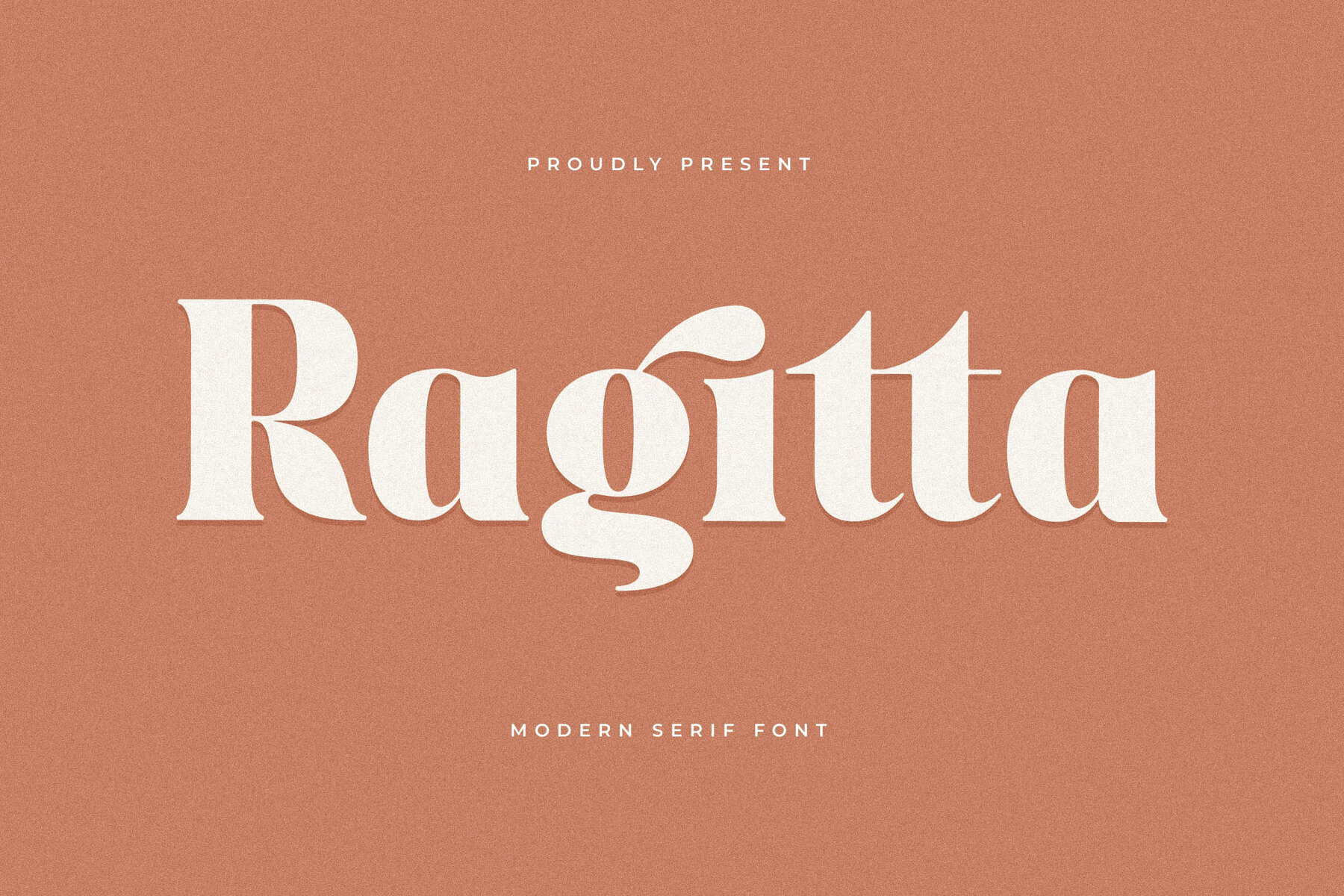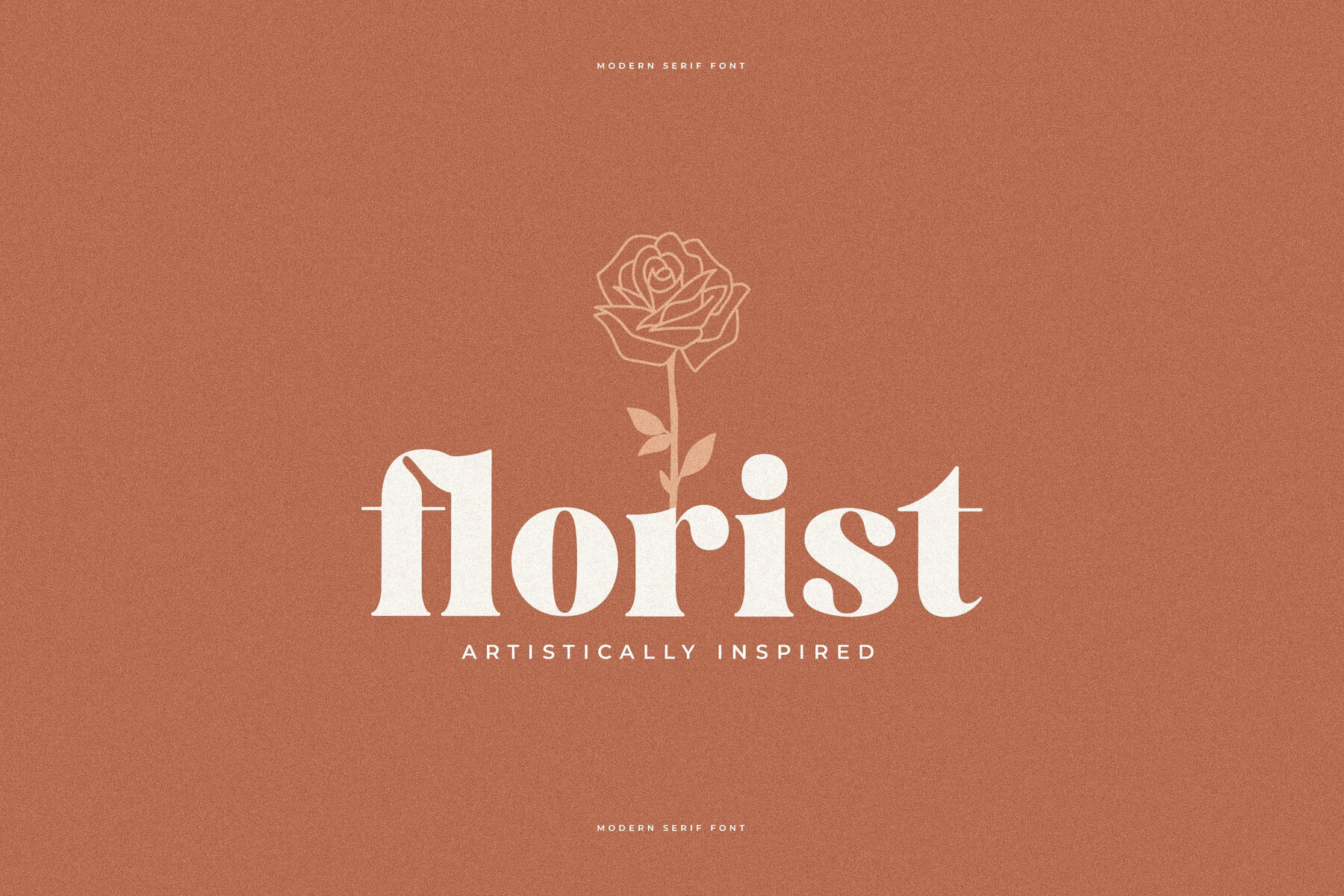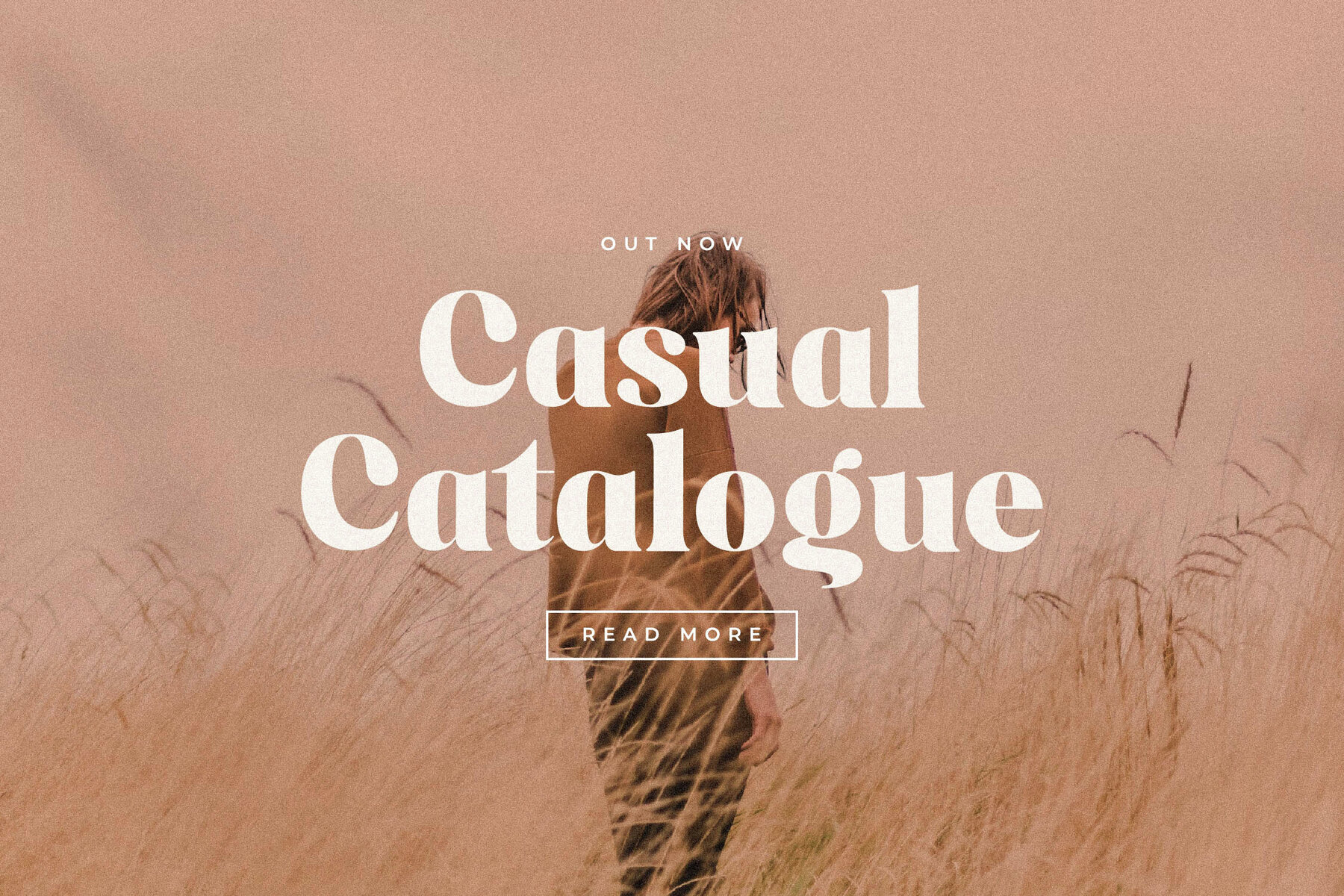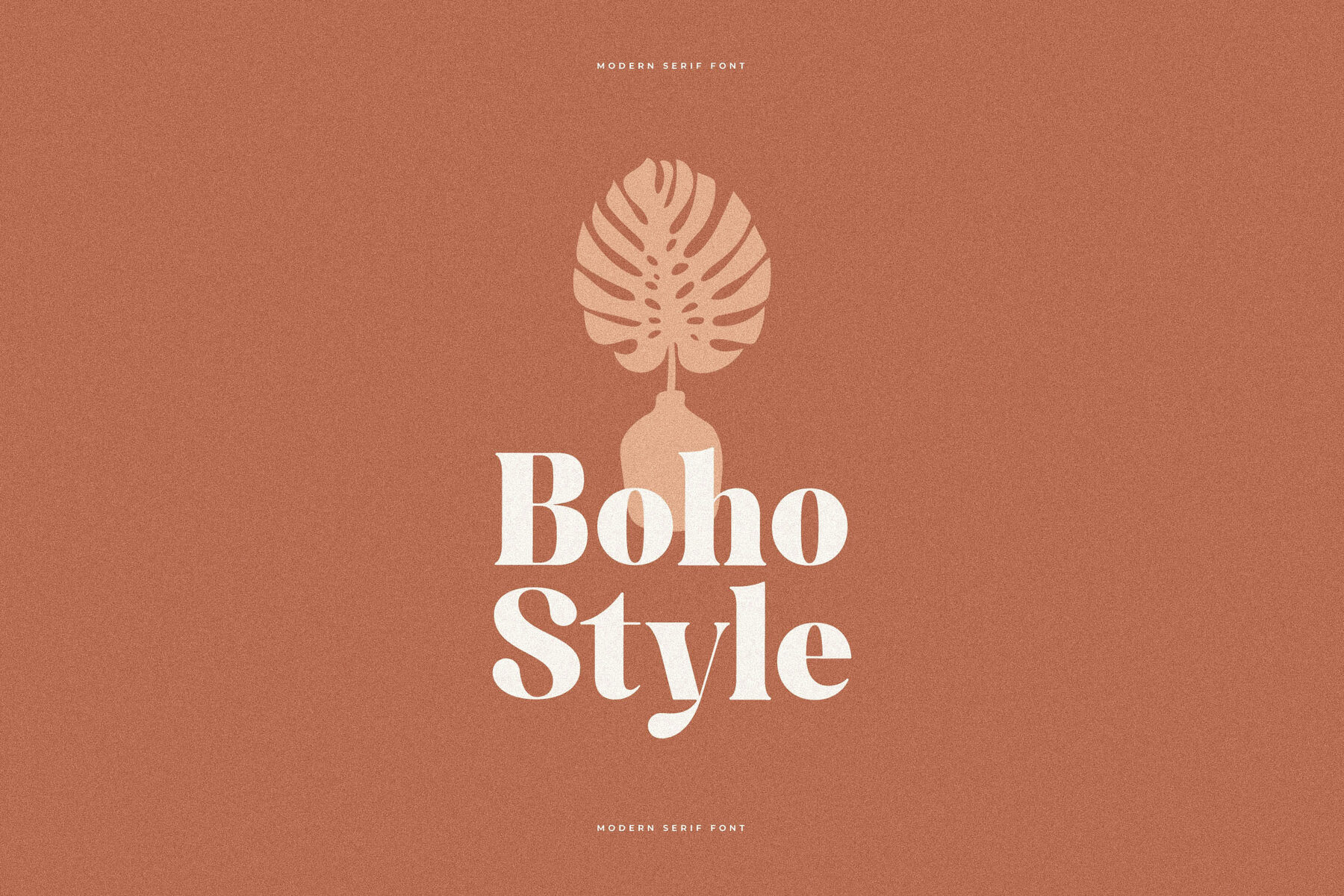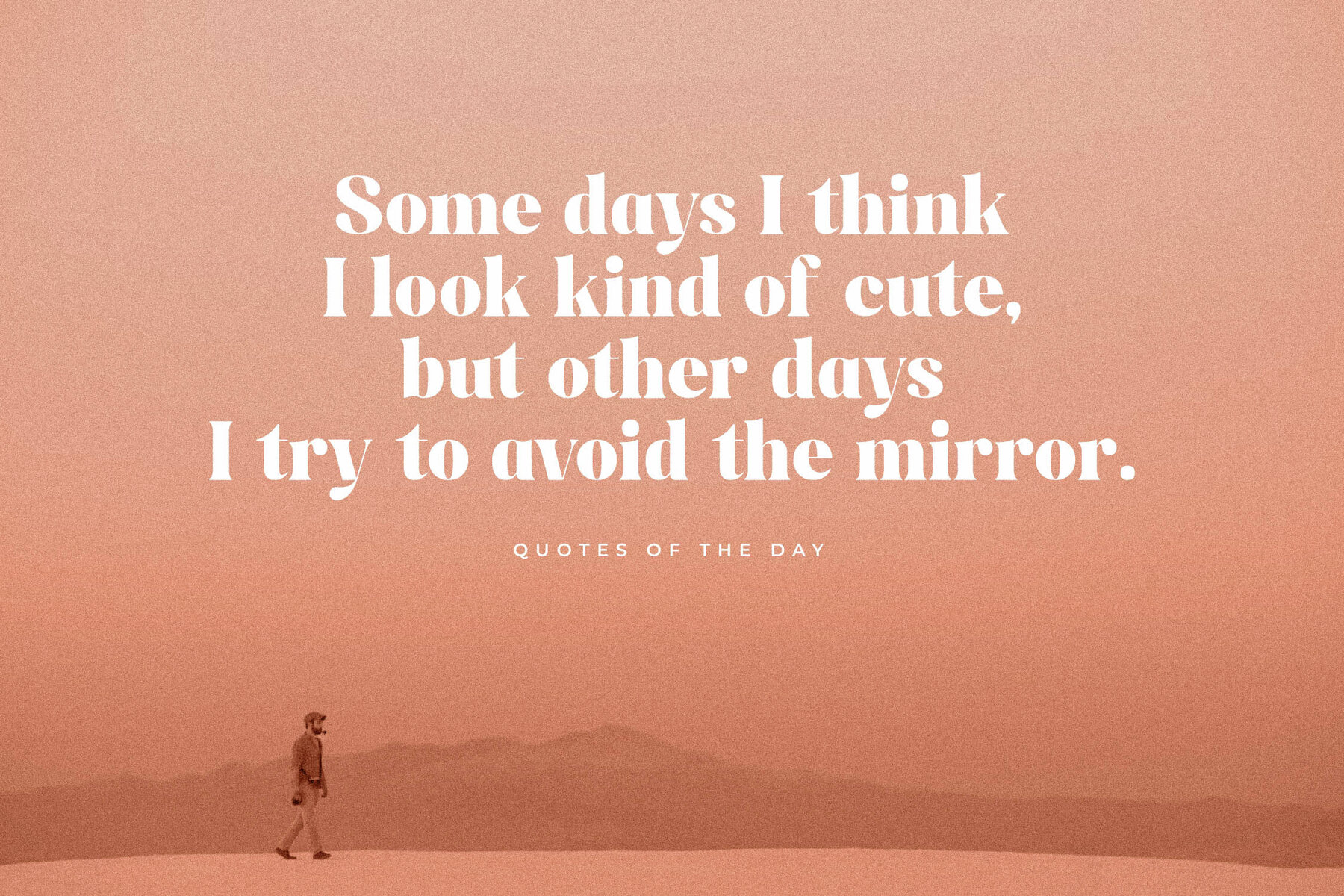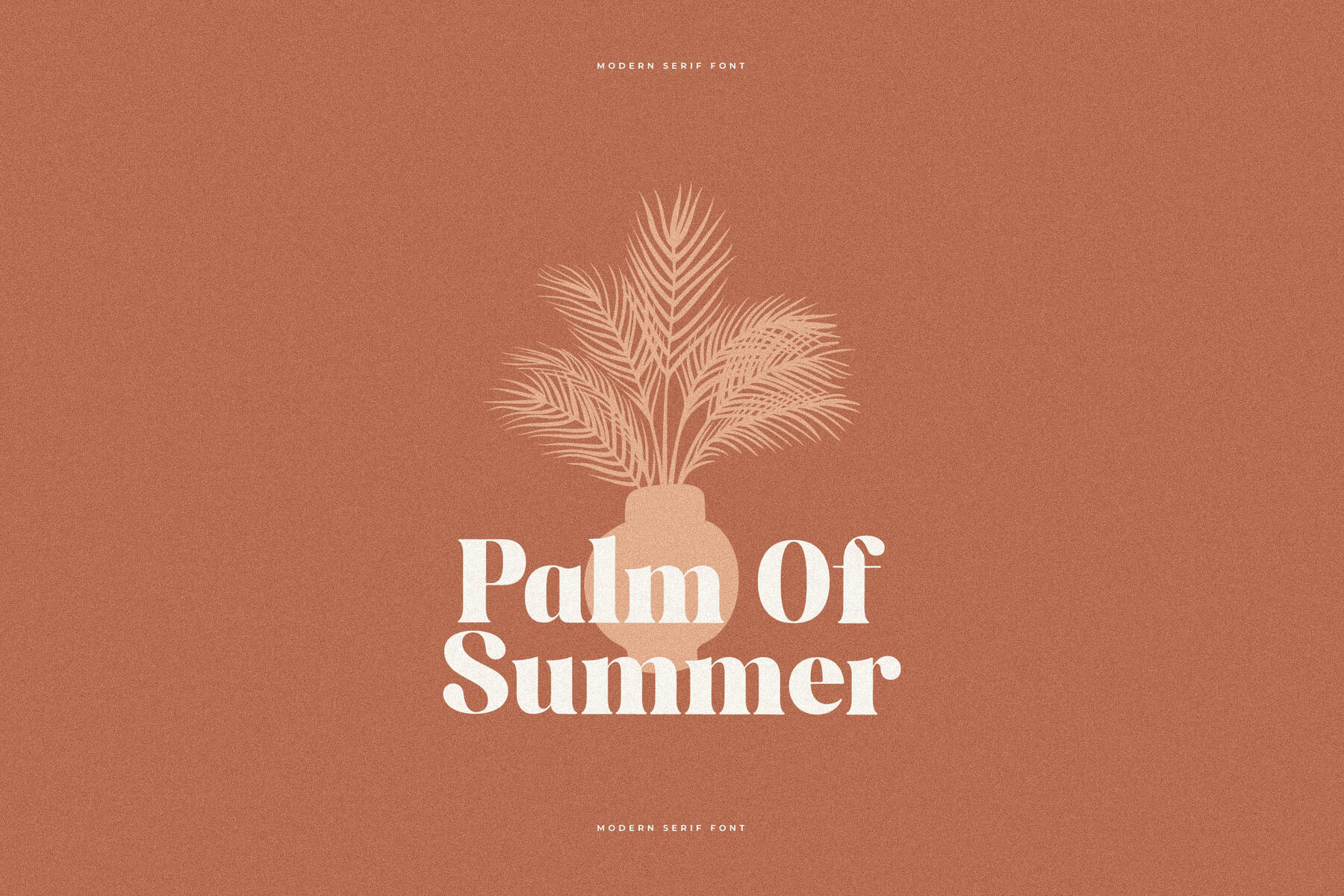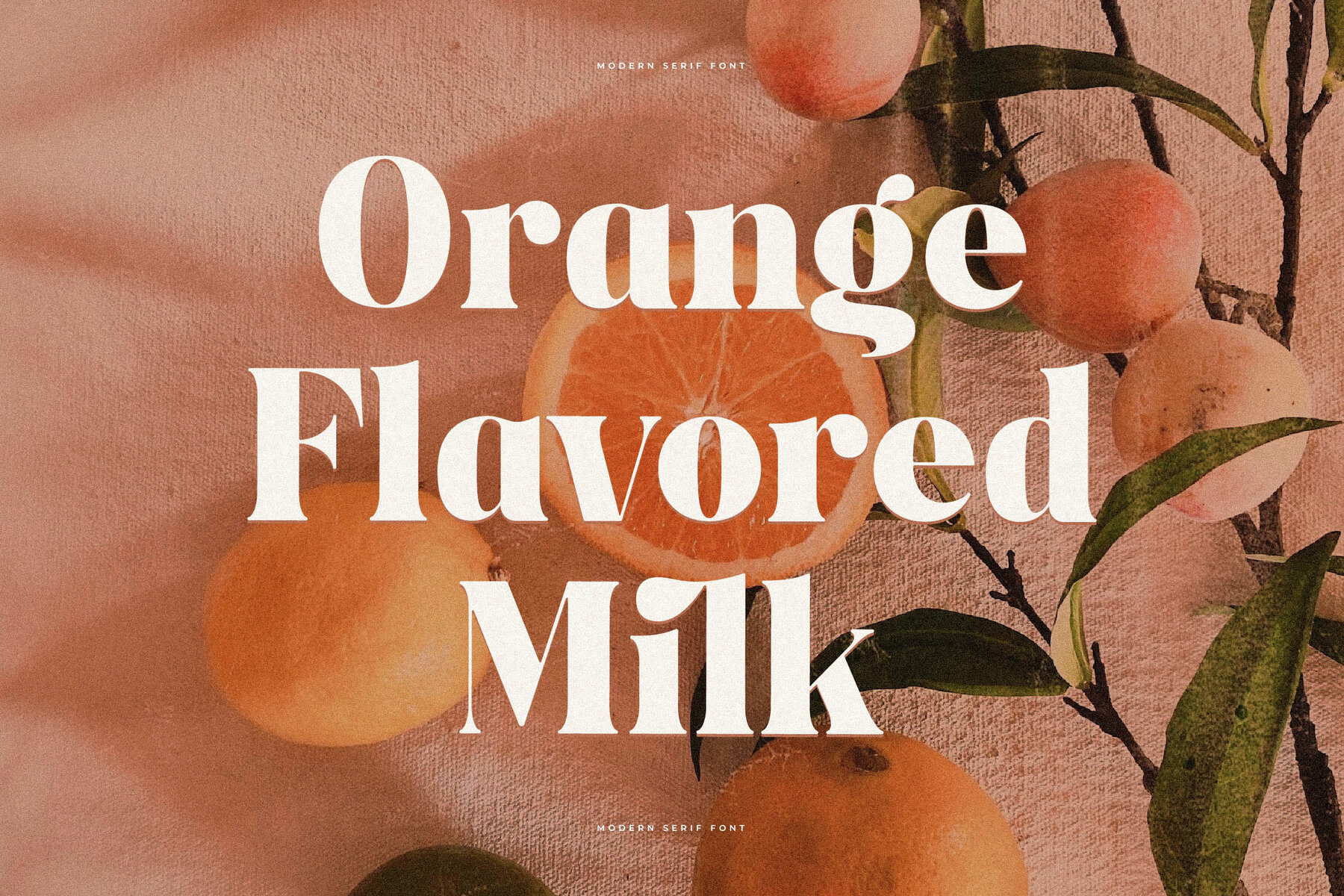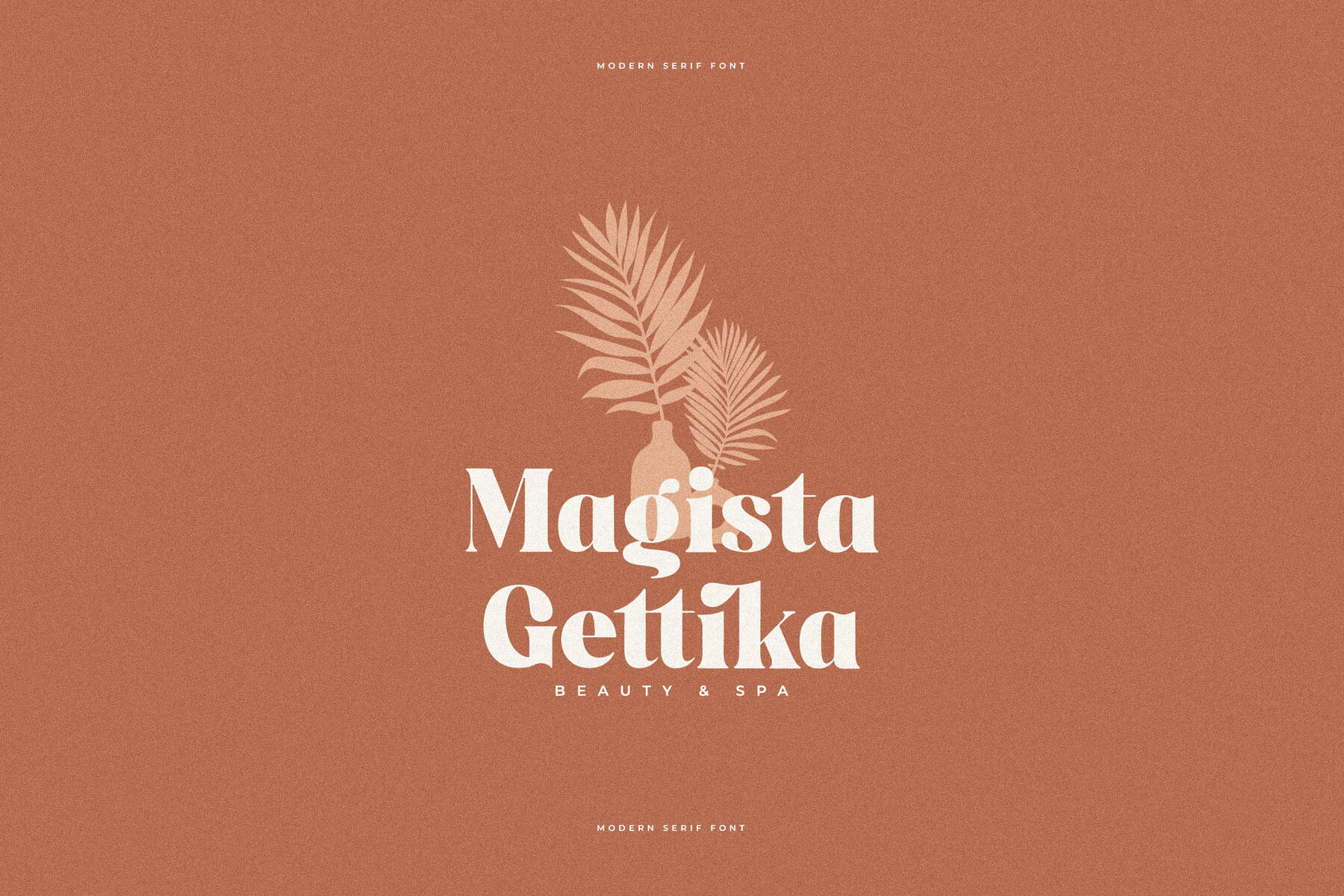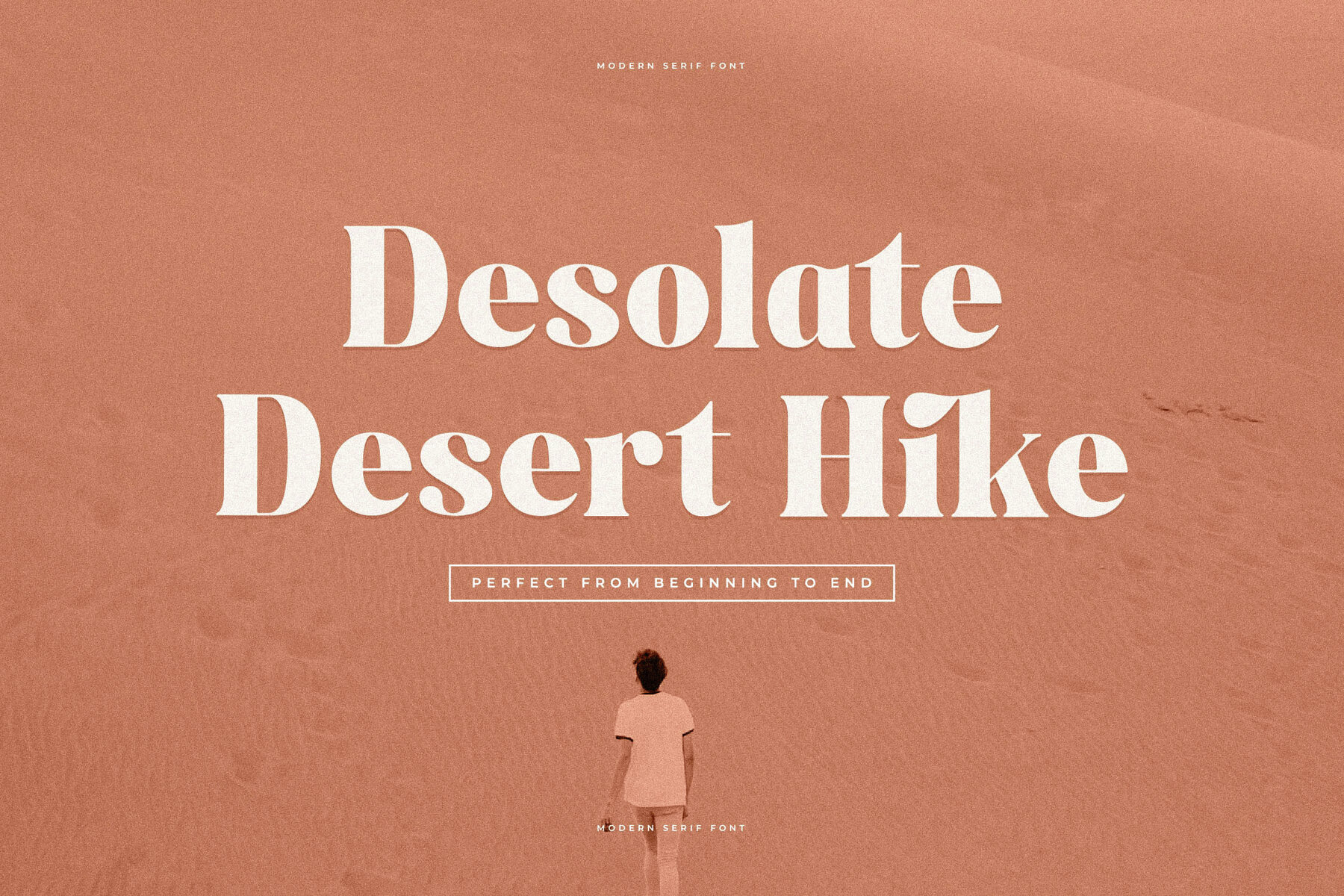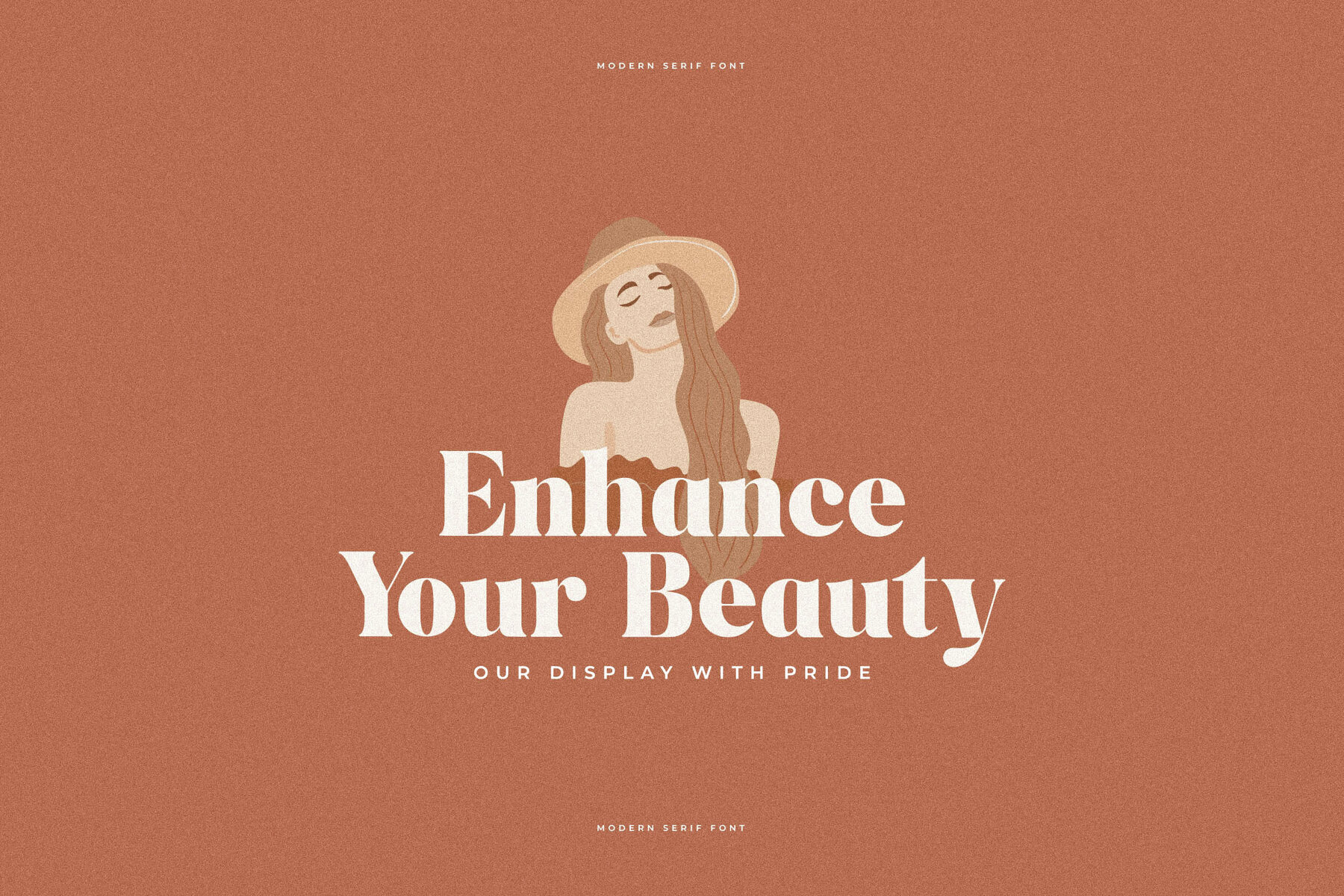
Ragitta Font
Ragitta Regular
Ragitta Italic
Discover the exquisite Ragitta Typeface, a modern and classic serif design that brings a distinctive flair to your projects. Ideal for crafting elegant and luxurious logos, book and movie titles, fashion brands, magazines, apparel, and meaningful quotes. Ragitta's unique style delivers a fresh yet timeless aesthetic.Ragitta Typeface